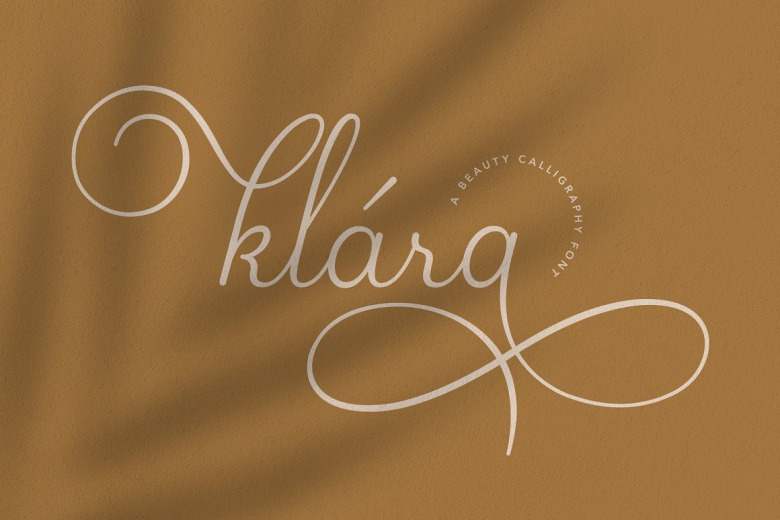
Klara Font
Klara is a great calligraphy typeface, designed in a modern style so that the font is beautiful and pleasing to the eye. This typeface is a perfect font for those who need elegance, stylish and beautiful designs and well suited for wedding invitations, quoted-text, motivational quotes, and feminine branding. It’s also perfect for elegant logos, woman’s magazines, websites, and any other projects requiring a handwritten and luxurious touch.